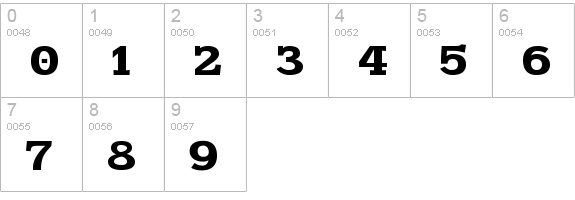
Zantroke Font Details
Zantroke is a free for personal use font in the General > Slab-Serif category. It has been downloaded 162 times and is available for Windows, Mac and Linux.
Zantroke font is a stunning typeface that will elevate your designs to new heights. With its clean and modern aesthetic, Zantroke is perfect for a wide range of projects, including branding, logo design, packaging, headlines, and more. Its sleek and sophisticated letterforms effortlessly capture attention and make a lasting impression. One of the best aspects of Zantroke font is that it is free for personal and commercial use. This means that you can download and use it in any project, without having to worry about any licensing restrictions. Whether you are a professional designer or a hobbyist, Zantroke font is readily available to enhance your creations. You can easily get your hands on Zantroke font by visiting FontsMarket.com. This reputable website offers a vast collection of high-quality fonts, and Zantroke font is one of the gems in their collection. Simply navigate to the Zantroke font page and click on the download button to obtain this incredible typeface. Once you have downloaded Zantroke font, you will be amazed by its versatility and flexibility. Its well-crafted letterforms ensure legibility at any size, making it suitable for both small and large-scale projects. Additionally, Zantroke font supports multiple languages, allowing you to communicate your message effectively to a global audience. In terms of style, Zantroke font exudes a sense of elegance and sophistication. Its balanced proportions and precise curves create a harmonious visual experience, captivating viewers and adding a touch of refinement to your designs. Whether you are creating a magazine spread, website layout, or social media graphics, Zantroke font will effortlessly complement your overall aesthetic. Don't miss out on this incredible opportunity to enhance your design projects with Zantroke font. Download it for free today at FontsMarket.com and unlock a world of creative possibilities. With its striking appearance and user-friendly nature, Zantroke font is a must-have for any designer or creative enthusiast. Elevate your designs and make a lasting impression with Zantroke font.